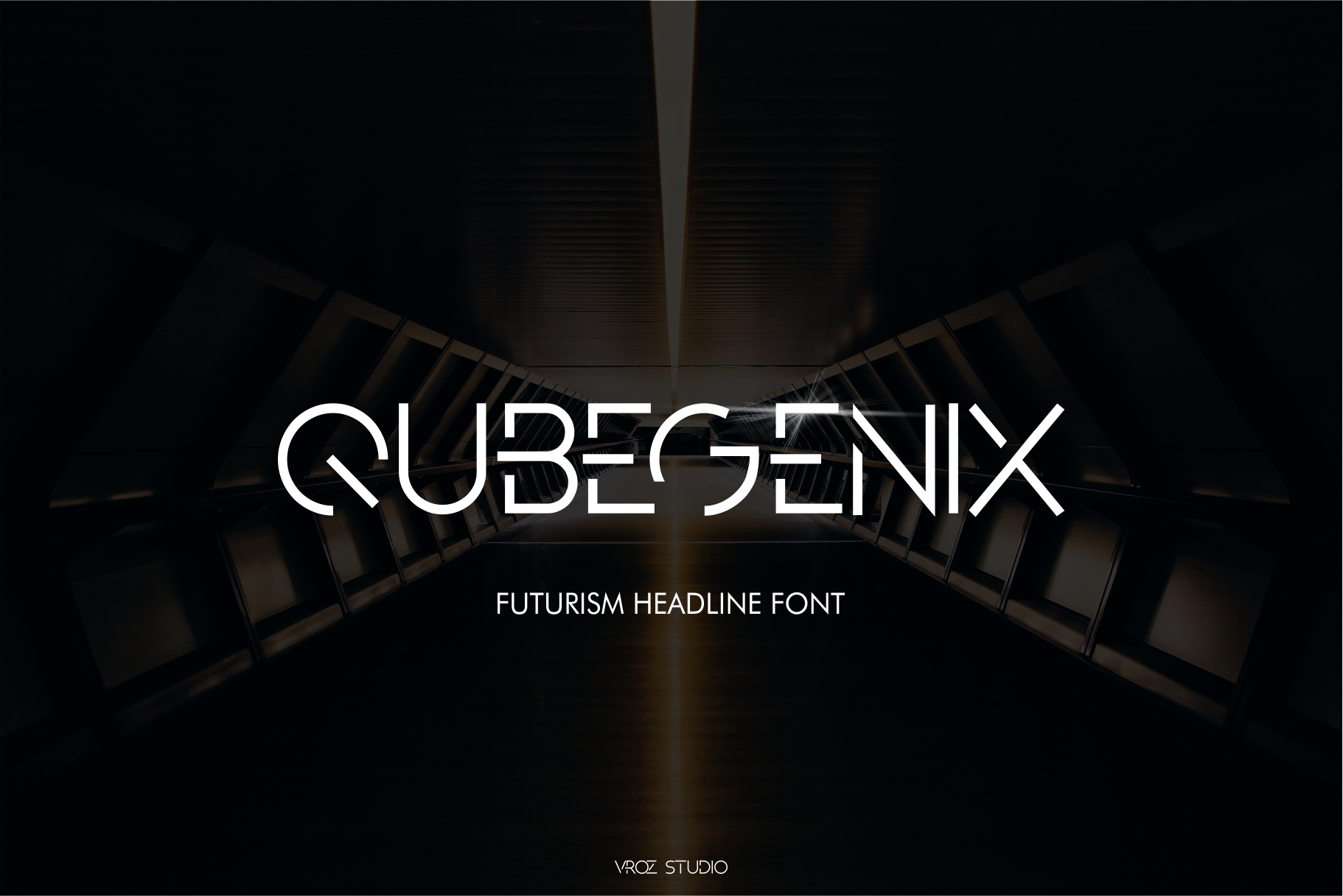
QUBEGENIX - futuristic headline font
QUBEGENIX - futuristic headline font with a futuristic edge, geometric corners, perfect for many project: fashion, magazines, logo, branding, title quotes, blog header, poster, advertisements, postcard, book, websites, etc.